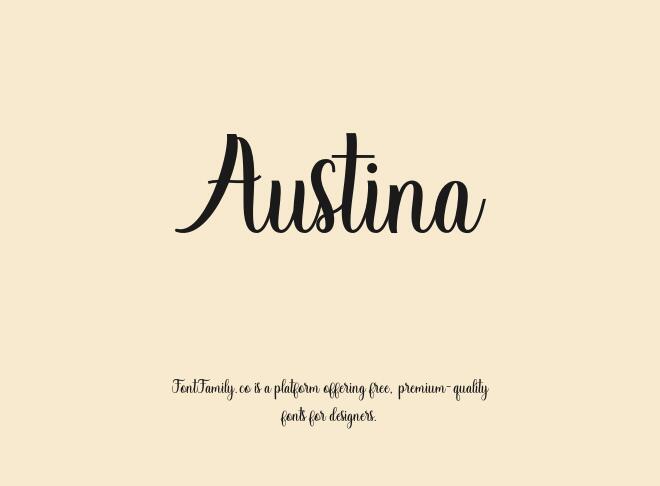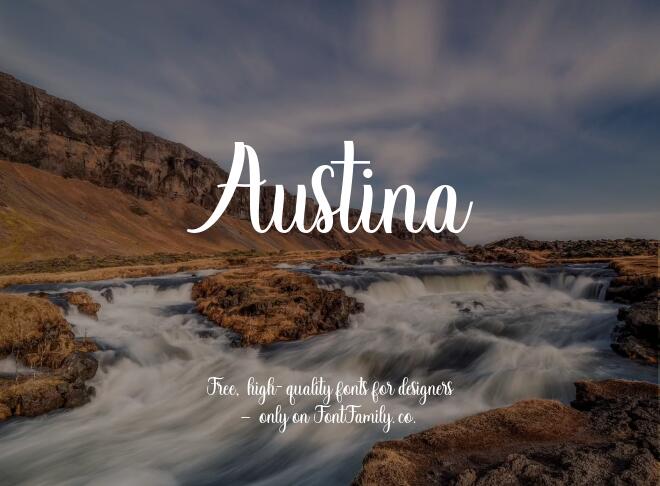
Austina Font
Austina Font, designed by Creative Typography Studio, is a modern and elegant handwritten typeface. The font exhibits a unique combination of sophistication and creativity, making it perfect for a variety of design projects. Its distinct style can be compared to popular fonts like Brush Script and Mistral, but Austina stands out with its refined curves and neat lettering. The fluidity of Austina Font makes it an excellent choice for branding, logo designs, product packaging, and invitation cards. Its versatile nature also suits digital designs, offering a personal touch to websites and social media content. With its sleek design and wide usability, Austina Font is a valuable asset for designers aiming to add a touch of elegance to their work.